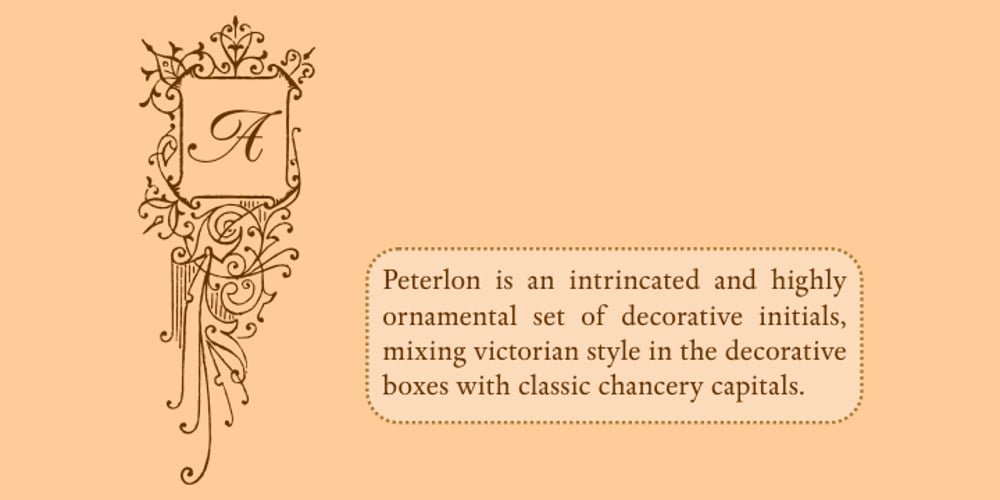
Peterlon
Peterlon font
Peterlon Font Family was designed by published by Intellecta Design. Peterlon contains 2 styles and family package options. Peterlon is an intricate and highly ornamental set of decorative initials, mixing Victorian style in the decorative boxes with classic chancery capitals.